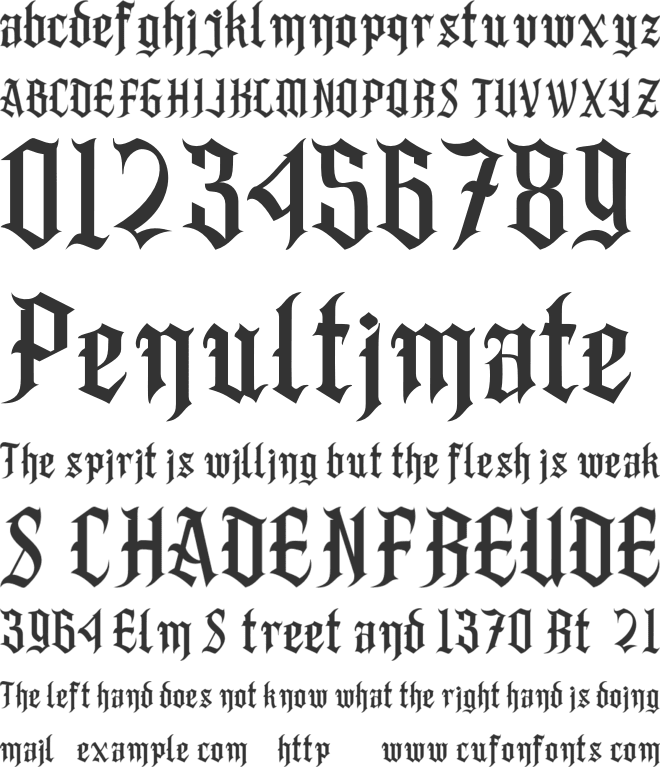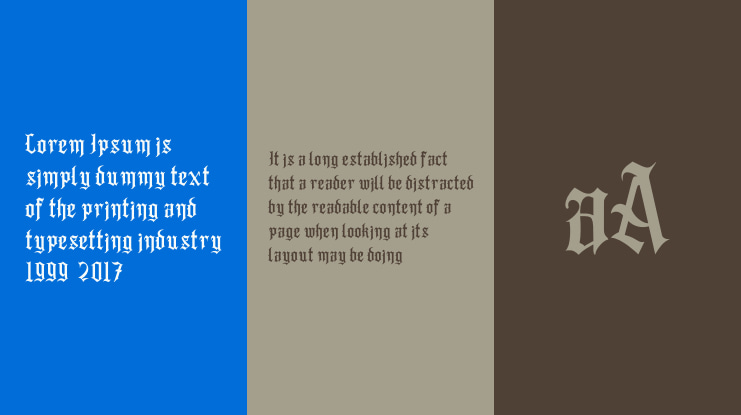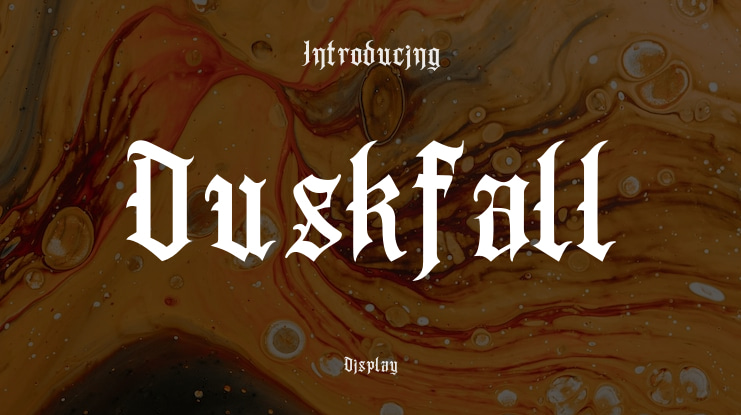
Duskfall Font
Duskfall is a bold gothic font with strong medieval vibes, perfect for designers who want to add mystery, darkness, and elegance to their projects. Inspired by traditional blackletter typefaces, Duskfall combines sharp details with modern usability, making it ideal for posters, album covers, apparel, branding, logos, and fantasy-themed artworks.
Bring your designs to life with Duskfall Gothic Typeface – a font forged in darkness to command attention.